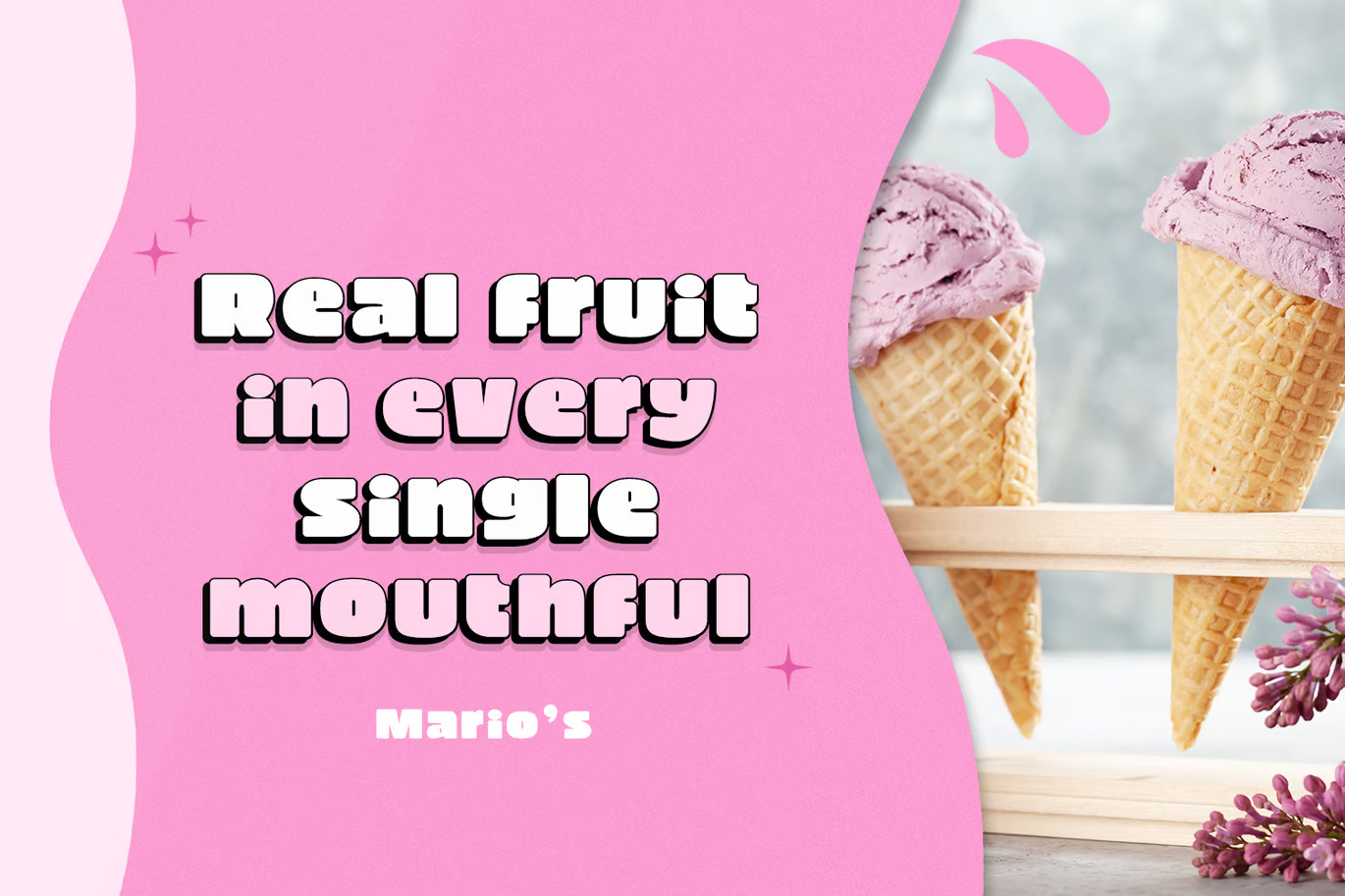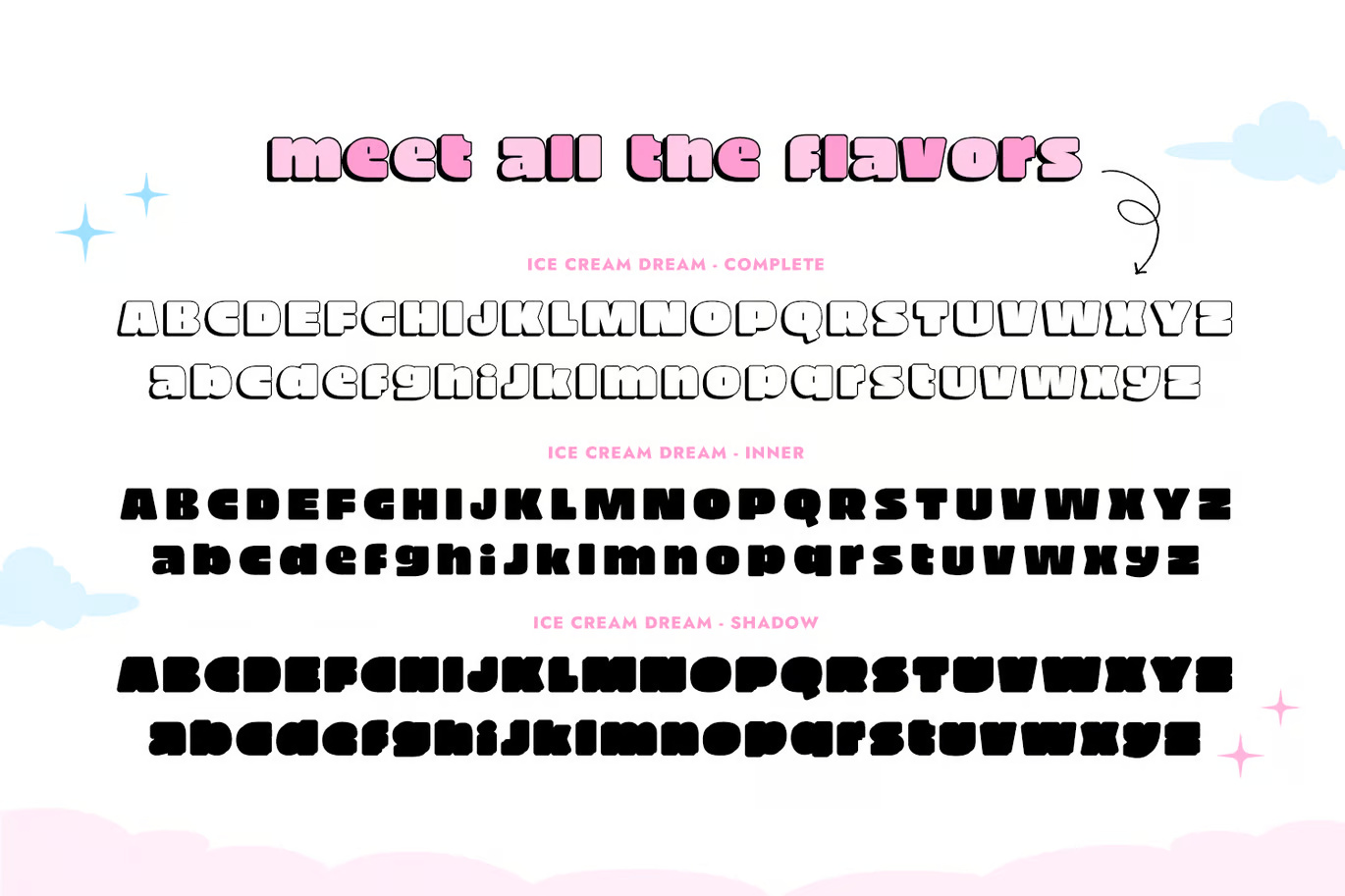
Ice Cream Dream Font Family
The Ice Cream Dream font family is a playful, handwritten typeface that exudes a fun and casual vibe. It features smooth, rounded letterforms with a slightly irregular, organic feel, making it perfect for projects that need a whimsical and friendly touch. The font is great for logos, greeting cards, social media posts, and children’s designs. With a natural flow and a joyful aesthetic, Ice Cream Dream captures the essence of carefree creativity.
Ice Cream Dream Sans-Serif Font Family